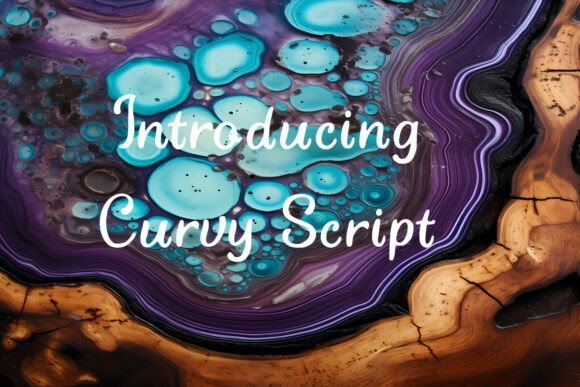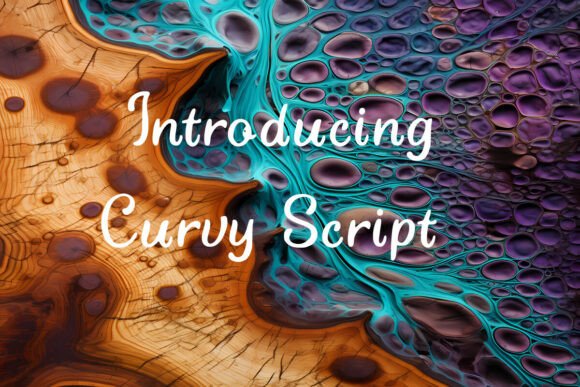
The Perfect Brush Stroke: Unleashing the Beauty of the Curvy Script Font
Do you ever find yourself stuck in a design rut, searching for the perfect font to elevate your project and leave a lasting impression? I know I have! It was during one such moment, while working on a branding project for a client, that I stumbled upon the Curvy Script Font. Its smooth, flowing lines immediately caught my eye, and I knew I had to learn more.
The Curvy Script Font is a versatile typeface designed to add a touch of elegance and sophistication to any design project. Whether you’re a seasoned designer or just starting out, this font is sure to become a valuable addition to your toolkit. Its wide range of applications makes it perfect for everything from dynamic branding elements to engaging social media posts.
Curvy Script Font Key Features
- Font Family: Curvy Script, with various font styles (Regular, Italic, Bold, Bold Italic)
- Character Set: Latin, Cyrillic, Greek, and other languages (over 1000 glyphs)
- Unique Characteristics: Elegant, flowing curves, with subtle flair and flair variations, making it perfect for invitations, branding, and creative projects
Curvy Script Font Review
Overall, I’m quite fond of the Curvy Script Font. Here are a few things that work well:
- ✨ Elegant and stylish aesthetic: The font’s curvaceous design gives it a touch of sophistication and elegance, making it perfect for creative projects, invitations, and marketing materials.
- ✨ Highly legible: Despite its ornate design, the font is surprisingly easy to read, even at smaller font sizes.
- ✨ Versatile: The Curvy Script Font comes in a range of weights and styles, making it suitable for various design applications.
- ⚠️ Limited language support: The font may not be compatible with non-Latin scripts, which could be a limitation for international projects.
- ⚠️ Not ideal for body text: While the font is great for headings and titles, it may not be the best choice for body text due to its ornate design and limited legibility at smaller sizes.
Overall, the Curvy Script Font is a great choice for designers looking for a stylish and elegant font for their creative projects. While it may have some limitations, its versatility and high legibility make it a valuable addition to any font collection.
Curvy Script Font: A Practical Application Guide
Use Curvy Script Font for:
– Brand logos and packaging
– Social media graphics and captions
– Creating a whimsical and playful atmosphere
Remember to experiment with different font sizes, colors, and combinations to get the most out of Curvy Script Font.
Alternatives to Curvy Script Font
Carolyna Pro is a modern script font designed for elegant and sophisticated designs. It features a flowing, cursive style with subtle flourishes. Use Carolyna Pro for high-end branding, invitations, and wedding stationery.
Comparison to Curvy Script Font: Carolyna Pro has a more refined and polished look compared to Curvy Script Font, which is more playful and whimsical. Carolyna Pro is ideal for formal designs, while Curvy Script Font is better suited for casual and creative projects.
Great Vibes is a beautiful script font with a relaxed, handwritten feel. It features a mix of smooth and rough textures, giving it a unique and organic look. Use Great Vibes for designs that require a friendly and approachable tone.
Comparison to Curvy Script Font: Great Vibes has a more casual and laid-back vibe compared to Curvy Script Font, which is more elegant and refined. Great Vibes is ideal for social media graphics, blog posts, and other digital content, while Curvy Script Font is better suited for print materials.
How do I ensure the best results when using Curvy Script Font with other fonts?
What is the recommended line spacing for using Curvy Script Font?
The recommended line spacing for Curvy Script Font is 1.2 to 1.5 times the font size. This line spacing allows for optimal readability and helps to create a balanced visual hierarchy in your design.